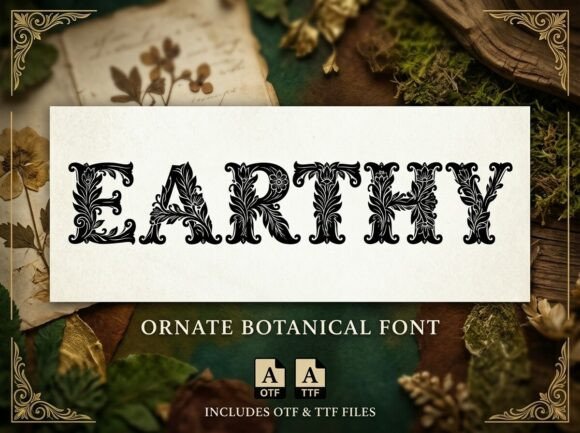
Discover the Whimsical Charm of Earthy Font: A Decorative Floral Masterpiece
Step into a magical woodland sanctuary, where timeless fairytale romance and high-end botanical artistry come alive. Earthy, a breathtaking decorative floral font, invites you to explore a realm of elegance and mystique. Meticulously optimized with razor-sharp vector paths, Earthy preserves every fine engraving and hollowed-out linework detail across large physical prints and digital screens alike.
A Font that Embodies the Essence of Nature
Earthy is more than just a font – it’s an extraordinary decorative asset that embodies the essence of nature. With its intricate floral patterns and organic design, this font is perfect for designers and crafters seeking to add a touch of whimsy and sophistication to their projects. Whether you’re creating mystical tarot card boxes, artisanal apothecary labels, organic skincare packaging, cottagecore brand identities, fantasy novel covers, or elegant wedding stationery suites, Earthy is the perfect choice.
Unparalleled Versatility and Precision
Earthy’s exceptional design ensures that it remains crisp and clear across various applications, from large physical prints to digital screens. Its razor-sharp vector paths guarantee that every fine detail, no matter how small, is preserved with precision. This level of quality makes Earthy an ideal font for:
- Mystical tarot card boxes: Add an air of mystery and enchantment to your tarot card designs.
- Artisanal apothecary labels: Elevate your product labels with a touch of elegance and sophistication.
- Organic skincare packaging: Convey a sense of natural luxury and high-end quality.
- Cottagecore brand identities: Create a charming and inviting brand image that resonates with your audience.
- Fantasy novel covers: Transport your readers to a world of magic and wonder.
- Elegant wedding stationery suites: Make your wedding stationery truly unforgettable.
Bringing Your Creative Vision to Life
As a designer or crafter, you understand the importance of finding the perfect font to bring your creative vision to life. Earthy font offers a unique blend of style, sophistication, and playfulness, making it an excellent addition to your design arsenal. With Earthy, you can:
- Create enchanting and immersive experiences for your audience.
- Add a touch of luxury and high-end quality to your designs.
- Stand out in a crowded market with a distinctive and memorable brand voice.
Technical Details and Benefits
Earthy font boasts an impressive range of technical benefits, including:
- Razor-sharp vector paths for precise and clear rendering.
- Optimized for large physical prints and digital screens.
- Intricate floral patterns and organic design.
- High-end botanical artistry and timeless fairytale romance.
In the world of design, a font can make all the difference. Earthy font offers a captivating blend of style, elegance, and mystique, making it the perfect choice for designers and crafters seeking to add a touch of magic to their projects. With its unparalleled versatility, precision, and technical benefits, Earthy is sure to become a treasured addition to your design toolkit. So why wait? Step into the enchanting realm of Earthy font and discover a world of creative possibilities.